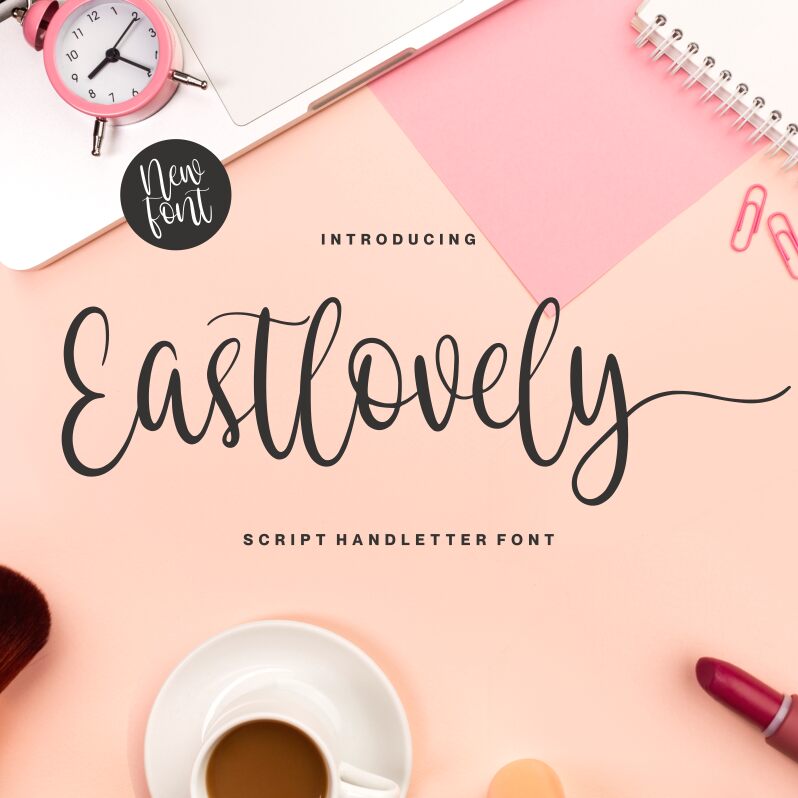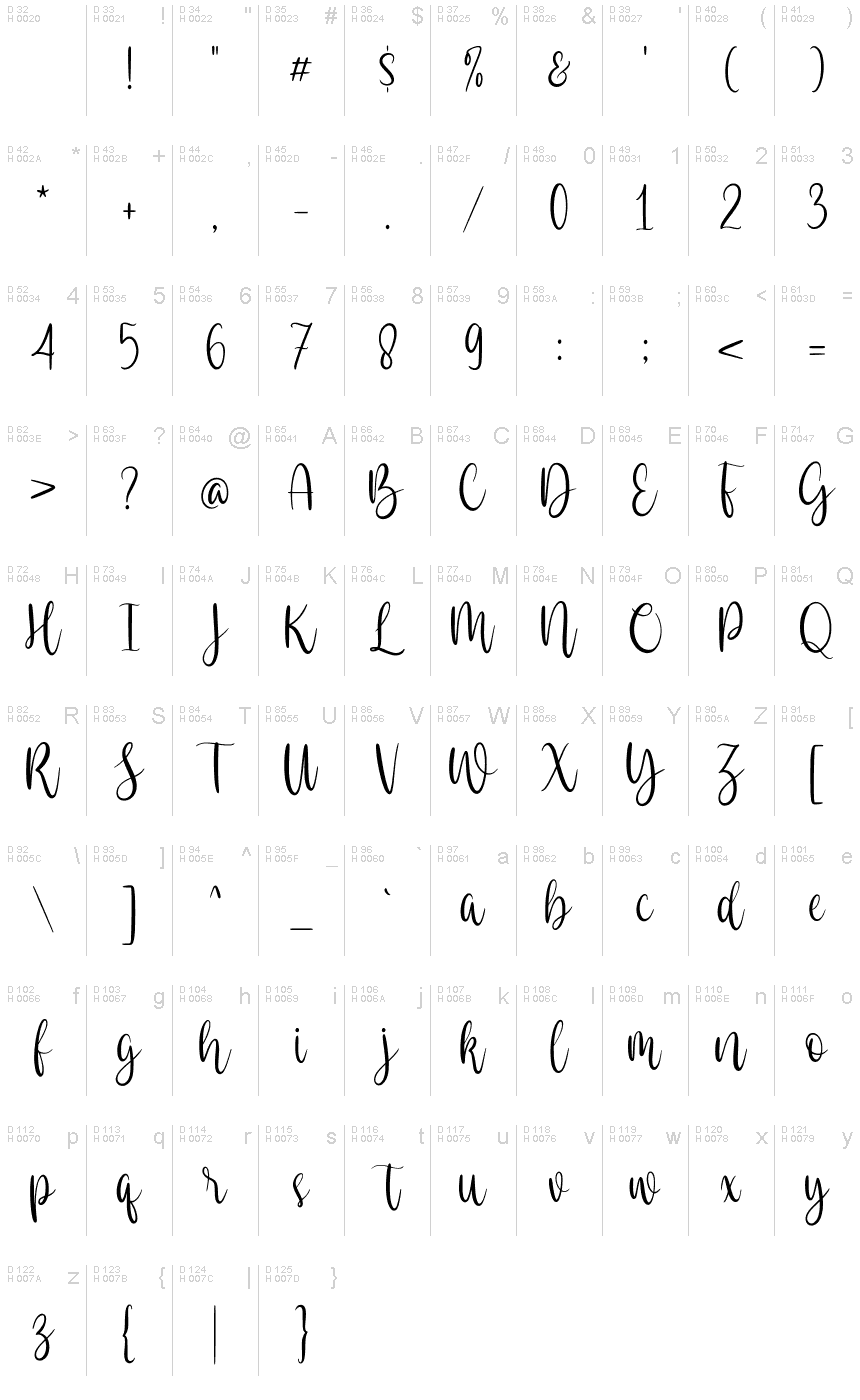
Eastlovely
Eastlovely, by Allouse.Studio, is a delightful handwritten font that exudes charm and character. Its light weight and condensed width make it perfect for projects that require a touch of elegance without compromising on space. Use it for anything from wedding invitations to social media graphics, or even product packaging. The graceful curves and flowing strokes of Eastlovely will add a personal touch to any design, making it stand out from the crowd. Give your next project a touch of loveliness with Eastlovely!